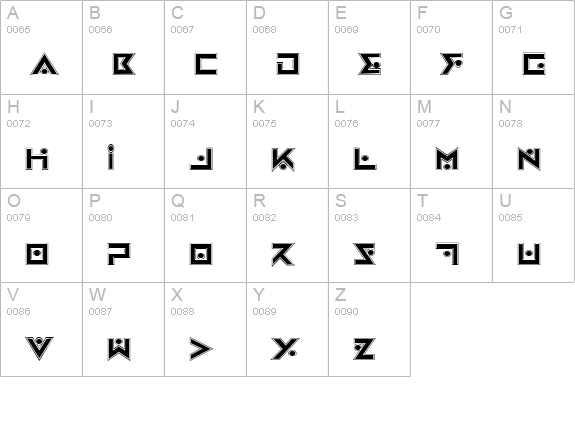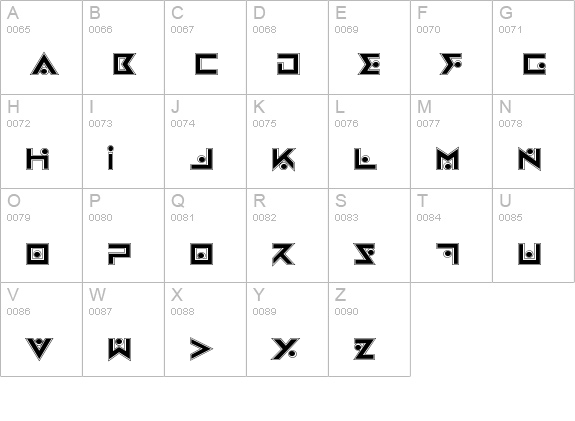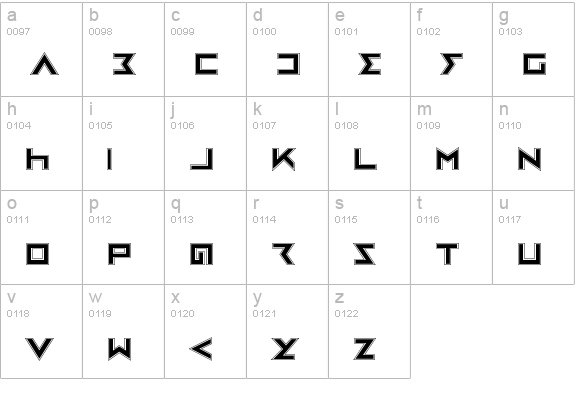
Iron Cobra Pro Font Details
Iron Cobra Pro is a sleek and modern typeface that exudes strength and confidence. With its sharp angles and bold lines, this font is perfect for making a statement in any design project. Whether you are creating a logo, poster, or website, Iron Cobra Pro will add a touch of sophistication and professionalism. Best of all, Iron Cobra Pro is available for free download at FontsMarket.com. Don't miss out on the opportunity to enhance your designs with this powerful and versatile font. Download Iron Cobra Pro today and take your projects to the next level!